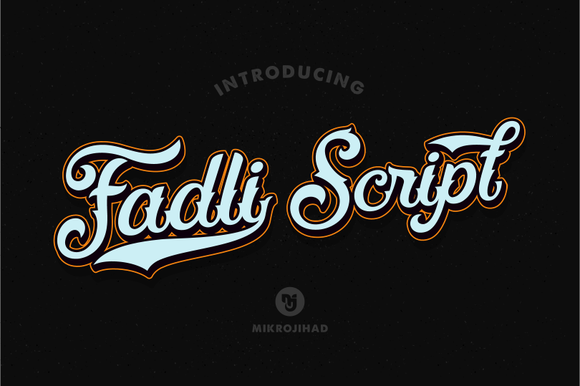
Journey into the world of Fadli Script, a captivating handwritten font inspired by the bold artistry of tattoo lettering. This remarkable creation by Mikrojihad Typefounder isn't just a font; it's an expression of individuality, a stroke of genius that transforms your designs into masterpieces.
With Fadli Script, you'll discover a font that dances across your screen, its characters flowing with the grace and fluidity of a calligrapher's hand. Each letter is a work of art, meticulously crafted to evoke a sense of authenticity and personality. The result is a font that's both stylish and timeless, a true gem in the world of typography.
Imagine the possibilities as you unleash Fadli Script's potential. Let your creativity soar as you craft logos that captivate, branding that leaves an unforgettable mark, and designs that speak volumes. Fadli Script is the key to unlocking your imagination, turning your artistic visions into tangible realities.
Step into a world where your designs come alive, where every word carries weight and every letter exudes a unique charm. With Fadli Script, you'll create designs that captivate audiences, leaving them in awe of your artistry. This isn't just a font; it's a statement of style, a testament to your impeccable taste.
Elevate your designs beyond the ordinary. With Fadli Script, you'll create masterpieces that transcend trends, leaving an enduring legacy in the world of design. Your work will be the envy of others, a testament to your dedication to excellence.
Don't settle for mediocrity; embrace the extraordinary with Fadli Script. Let your creativity know no bounds as you weave magic into your designs. Fadli Script awaits your command, ready to transform your artistic vision into reality.